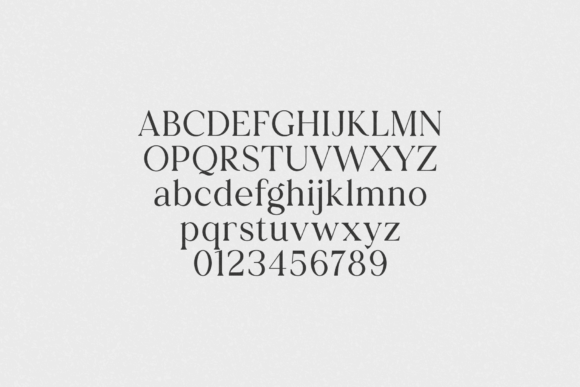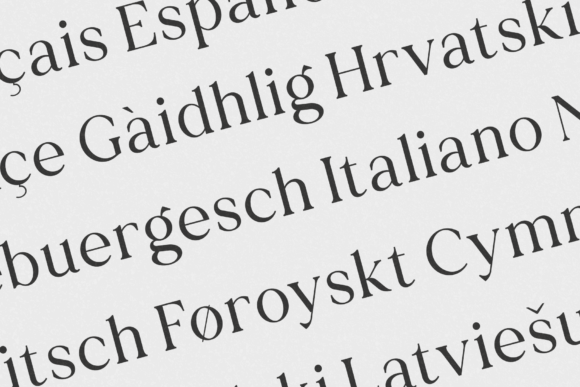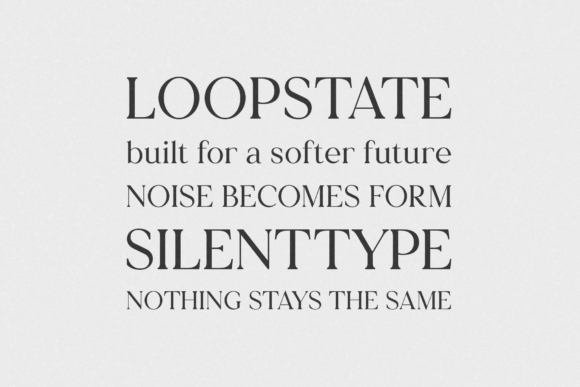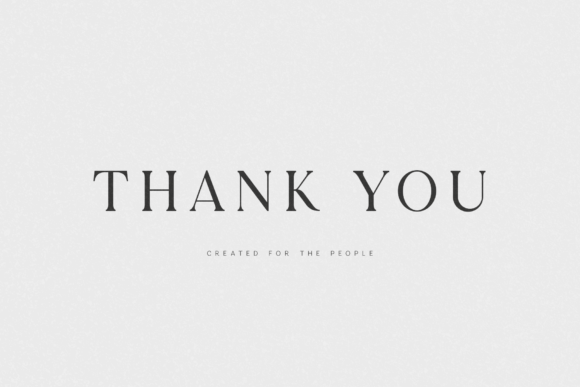
When Words Come Alive: The Power of Creators Type Font
Do you remember the moment when a single font choice sparked an entire creative vision? For many designers, it’s a thrilling experience that sets the tone for an entire project. You’ve poured over font families, experimented with different styles, and finally landed on the perfect match. In this case, the Creators Type Font stands out as a timeless classic, designed specifically for thoughtful creators, storytellers, and brands that value elegance and clarity.
This beautiful serif font is more than just a design choice – it’s a key to unlocking the essence of your message. With its balanced proportions, soft contrast, and refined serif details, the Creators Type Font offers versatility without sacrificing character. Whether you’re crafting a book cover, magazine spread, or digital experience, this font is sure to elevate your work and leave a lasting impression.
Creators Type Font Key Features
- Font Family: Creators Type is a serif font family designed for various creative applications.
- Font Size: The font family is available in multiple weights, ranging from 100 to 900, allowing for a wide range of typography options.
- Unique Characteristics: Creators Type features a distinctive blend of classic and modern elements, making it suitable for both traditional and contemporary designs.
- Resolution: Optimized for high-resolution displays, ensuring crisp and clear text rendering at various screen sizes and resolutions.
- Character Set: Supports a wide range of languages, including Latin, Cyrillic, and Greek alphabets, making it a versatile choice for global applications.
Review of Creators Type Font
Overall, I’m quite impressed with the Creators Type Font. It has a unique, elegant design that can elevate any digital project. ✨ One of the things I appreciate is its versatility – it’s suitable for a wide range of applications, from headlines to body text.
- ✨ The font has a nice balance of modernity and classic elements, making it a great choice for designers who want to create a timeless look.
- ✨ The font is highly legible, even at small font sizes, which is essential for web and mobile applications.
- ✨ The font family includes various weights and styles, allowing designers to customize their project’s typography.
However, I do have some concerns about the font’s limitations. ⚠️ One of the issues is that it may not be suitable for projects that require a very bold or condensed font style.
- ⚠️ The font may not be the best choice for projects that require a high degree of readability at very small font sizes (e.g., mobile apps with limited screen real estate).
- ⚠️ The font family is relatively small, which may limit its usability in projects that require a wide range of font styles.
Overall, I’d give the Creators Type Font a solid 4 out of 5 stars. While it may have some limitations, its unique design and versatility make it a great addition to any designer’s toolkit.
Getting the Most Out of Creators Type Font
Use Creators Type Font for creative headings, titles, and quotes.
Combine it with bold and italic styles to add emphasis and contrast.
Experiment with different font sizes and colors to create visually appealing designs.
Use Creators Type Font for:
Headings and titles
Blog posts and articles
Social media graphics and ads
Presentations and documents
Does Creators Type Font support Unicode characters?
Yes, Creators Type Font supports Unicode characters, including Latin, Greek, and Cyrillic scripts. However, support for non-Latin scripts may be limited, and you should verify the font’s Unicode coverage before using it for text in languages other than English.